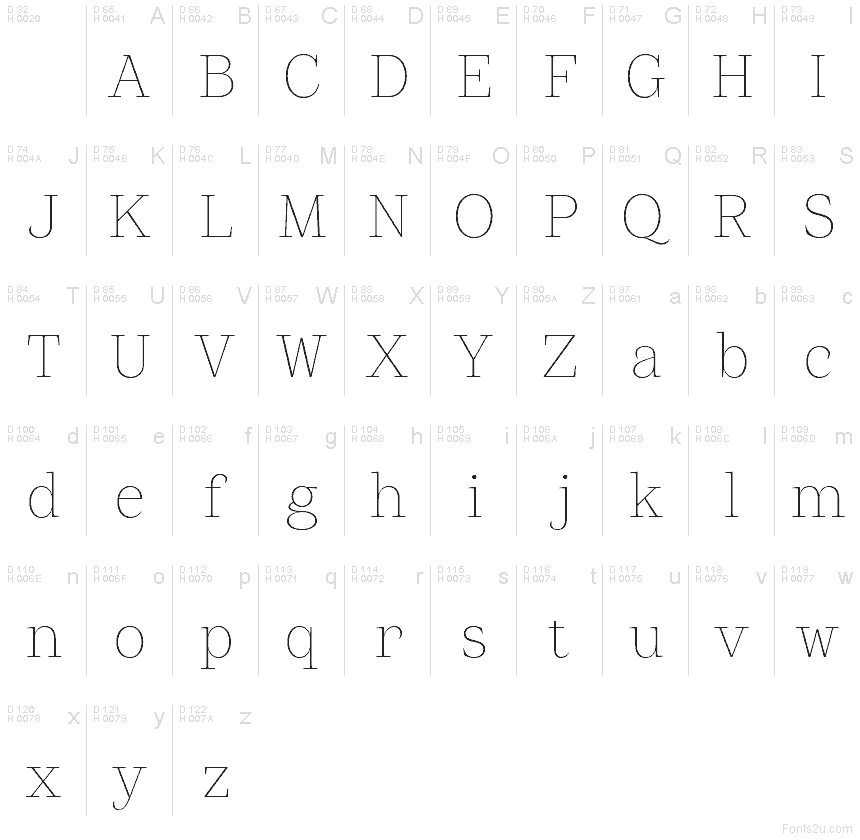
Klimaks Demo Thin
Klimaks Thin font is an elegant light serif font from Kereatype Studio. A minimalist design with clean lines and refined style that transfers a sophisticated, modern touch to the text. This lovely typeface has soft flowing strokes paired with thin characters.
Use Klimaks Thin for fashion and apparel products, beauty branding, wedding invitations, logotype creation, magazines or books titles, posters, flyers, weblogs and even signatures.